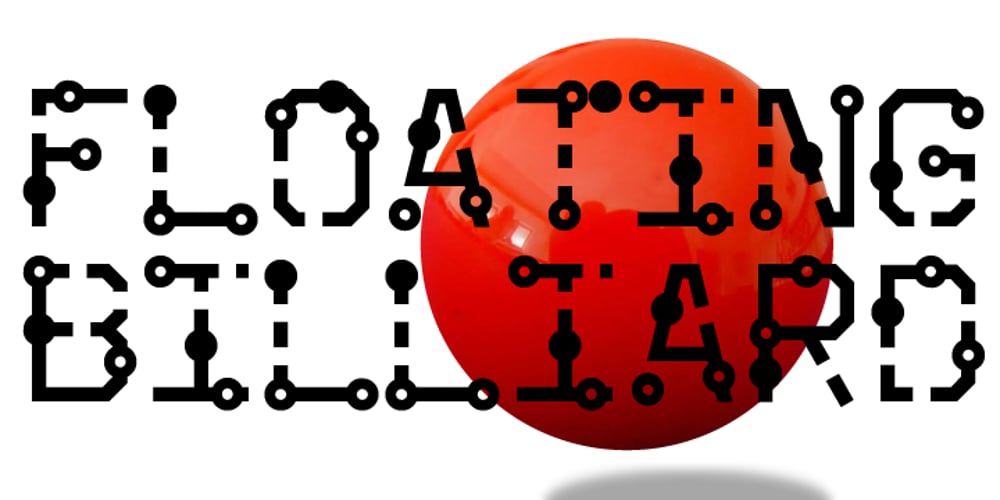
AT Move Billiard Font Family was designed by André Toet and published by André Toet Design. AT Move Billiard contains 1 styles and family package options. BILLIARD was born from the numerous sketches André Toet did for the design of a series of postage stamps in 2011. It’s a capital monospaced and ‘fun’ alphabet, based on the classic billiard play with two white and one red ball. Actually snooker and pool were derived from this rather old sport! In Europe it used to be a sport played by elderly people, practiced in traditional bars, including the smell of beer and the at that time prevalent smell of cigarettes and cigars. These days billiard, snooker and pool are quite popular once again with young people. Hopefully our new font will get the same attention the ‘old sport’ deserves and who knows it might even be used in a sportive way. Concept/Art Direction/Design: André Toet © 2017